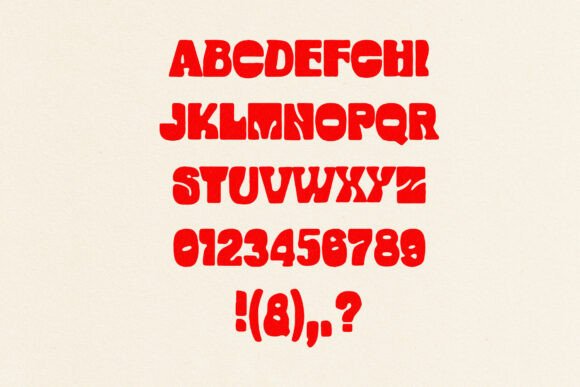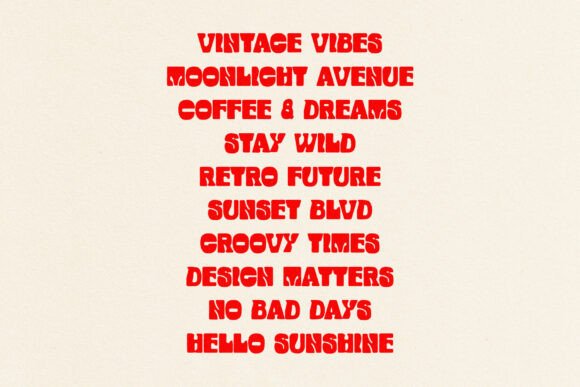
Introducing Creasamurfa Handdrawn Font: The Ultimate Psychedelic Display Typeface
Are you looking for a font that embodies the free-spirited, psychedelic vibes of the 1960s? Look no further than the Creasa Murfa Font, a hand-drawn display typeface that’s perfect for creating eye-catching posters, vinyl sleeves, cafe menus, badges, and retro packaging. With its chunky, poster-ready forms and confident all-caps voice, this font is sure to make a statement.
Unique Characteristics of Creasa Murfa Font
Creasa Murfa Font is a one-of-a-kind typeface that boasts a range of unique characteristics. Letters swell into banana-wedge shapes with soft rounded corners, giving it a playful and carefree feel. The font also features lively uneven widths and a relaxed arched rhythm that stacks beautifully in curved lockups. This results in a visually appealing, organic look that’s perfect for creating eye-catching designs.
Design Elements that Give Creasa Murfa Font its Psychedelic Flair
So, what gives Creasa Murfa Font its psychedelic flair? For starters, the font features deep counters and tight apertures, which give it a screen-printed density that’s reminiscent of vintage posters and flyers. Additionally, the font includes subtle ink-bleed texture and wonky overshoots, which keep it human and groovy. These design elements work together to create a font that’s not only visually striking but also wonderfully imperfect.
Using Creasa Murfa Font in Your Designs
Creasa Murfa Font is incredibly versatile and can be used in a variety of design applications. Here are a few ideas to get you started:
- Festival posters: The confident all-caps voice and chunky forms of Creasa Murfa Font make it perfect for creating eye-catching festival posters.
- Vinyl sleeves: Add a touch of psychedelic flair to your vinyl sleeves with this unique font.
- Cafe menus: Give your cafe menu a retro vibe with Creasa Murfa Font.
- Badges: Create custom badges with a groovy, hand-drawn feel.
- Retro packaging: Use Creasa Murfa Font to add a touch of nostalgia to your retro-style packaging.
Tips for Getting the Most out of Creasa Murfa Font
To get the most out of Creasa Murfa Font, try experimenting with different design elements, such as:
- Solid fills: Use solid fills to create a bold, eye-catching look.
- Two-tone shadow/outline effects: Add depth and dimension to your designs with two-tone shadow/outline effects.
- Warped baselines: Create a more dynamic, playful look by warping the baseline of your text.
Creasa Murfa Font is a unique and versatile typeface that’s perfect for designers and crafters looking to add a touch of psychedelic flair to their designs. With its chunky, poster-ready forms and confident all-caps voice, this font is sure to make a statement. Whether you’re creating festival posters, vinyl sleeves, cafe menus, badges, or retro packaging, Creasa Murfa Font is the perfect choice. So why wait? Download Creasa Murfa Font today and start creating your own groovy designs!
Overall, Creasa Murfa Font is a must-have for any designer or crafter looking to add a touch of nostalgia and psychedelic flair to their designs. Its unique characteristics, design elements, and versatility make it the perfect choice for a wide range of design applications.